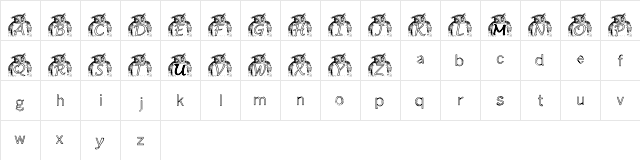
KG OWL2 Regular
Design Context for KG OWL2 Typeface
KG OWL2 is a composed and adaptable typeface that performs quietly and consistently across a wide range of design contexts.